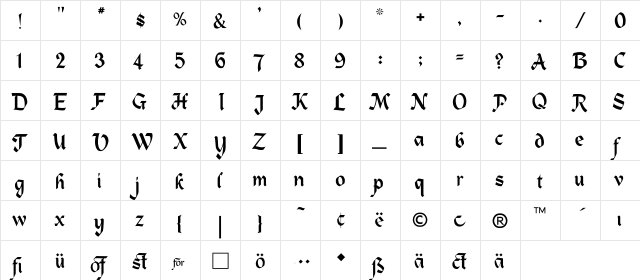
Heldenleiben-Normal Regular
Design Context for Heldenleiben-Normal Typeface
Heldenleiben-Normal is a composed and adaptable typeface that performs quietly and consistently across a wide range of design contexts.